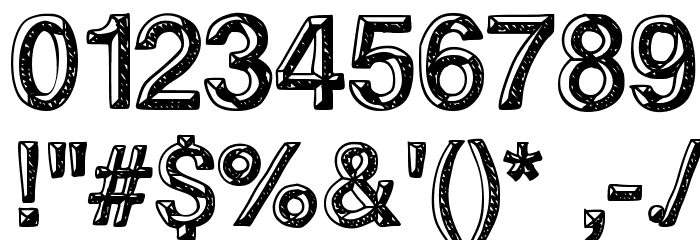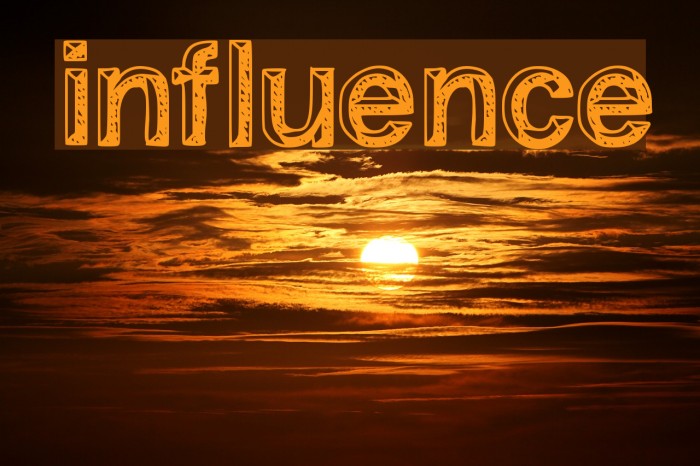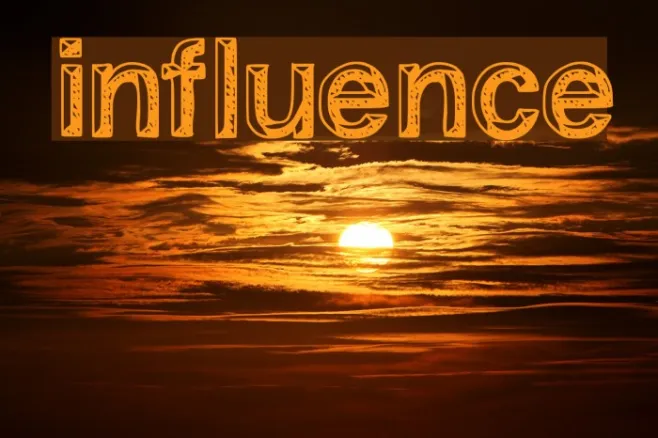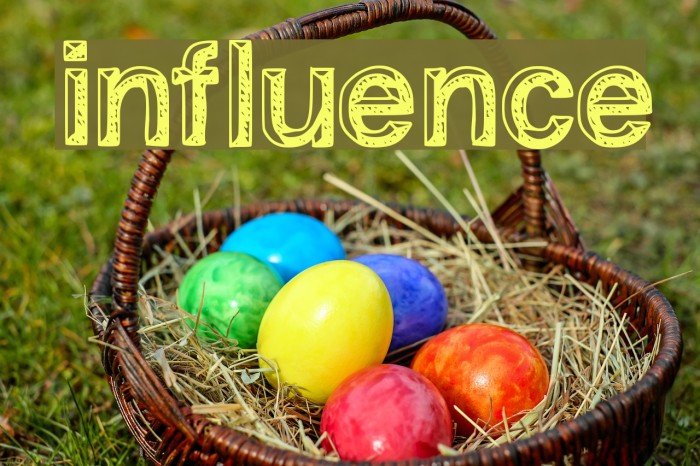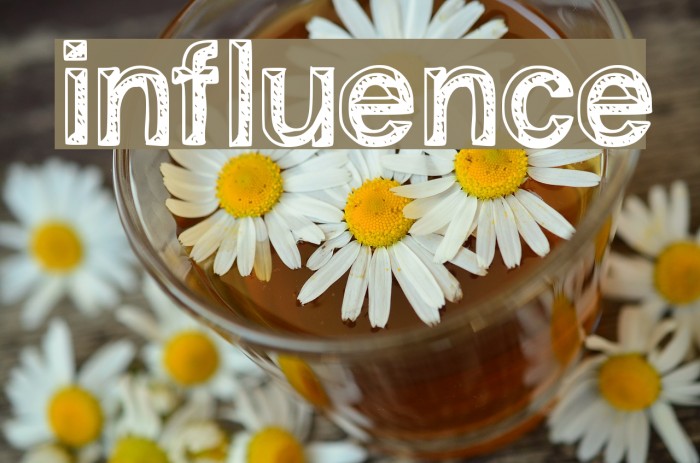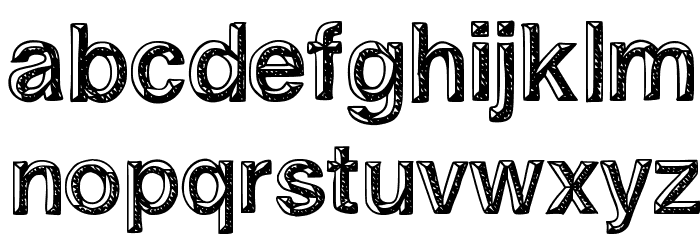
influence Font
This font features a bold, decorative style with a playful and artistic flair. Each character is outlined with a thick black stroke, filled with a textured pattern that adds depth and visual interest. The uppercase and lowercase letters maintain a consistent design, with rounded edges and a slightly condensed form. Numbers and special characters follow the same aesthetic, ensuring uniformity across all glyphs. The font's unique texture and bold presence make it ideal for eye-catching designs, where a creative and informal tone is desired.
A bold, decorative font with textured fills and thick outlines.
• Proposed Projects: Ideal for posters, event flyers, children's book covers, and creative branding projects.
• Category: Decorative/Display
• Bold: Yes
• Italic: No
• Weight: Bold
• Width: Condensed
• Character Spacing: Normal
• Contrast: High
• Overall Style: Decorative
• Use Case: Headlines, Logos